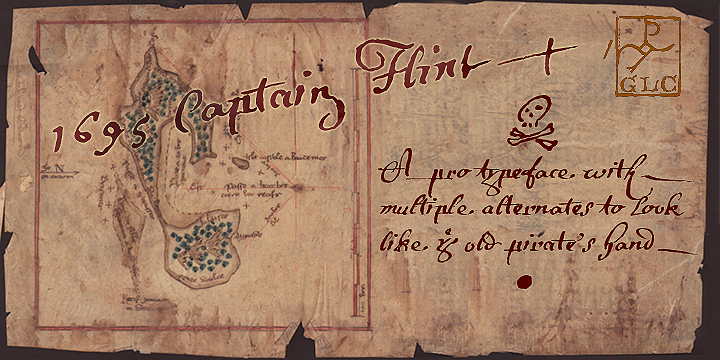
1695 Captain Flint is a historical and script font published by GLC Foundry.
This rough font, was created inspired from a lot of various european documents dated from the end of 1600’s. We were in search of a hand to accompany with “The treasure Island” novel by R.L. Stevenson, and this seems to be the good one. It is a “Pro” font containing Western (including Celtic) and Northern European, Icelandic, Baltic, Eastern, Central European and Turquish diacritics. We have also included a few old English specific abbreviations. The numerous alternates (four sorts of standard lowercases and two sets of capitals )and numerous ligatures allow to made the font looking like a real various hand. Using an OTF software, the features allow to vary each character without anything to do but to select contextual alternates and standard ligatures and/or stylistic alternates options.